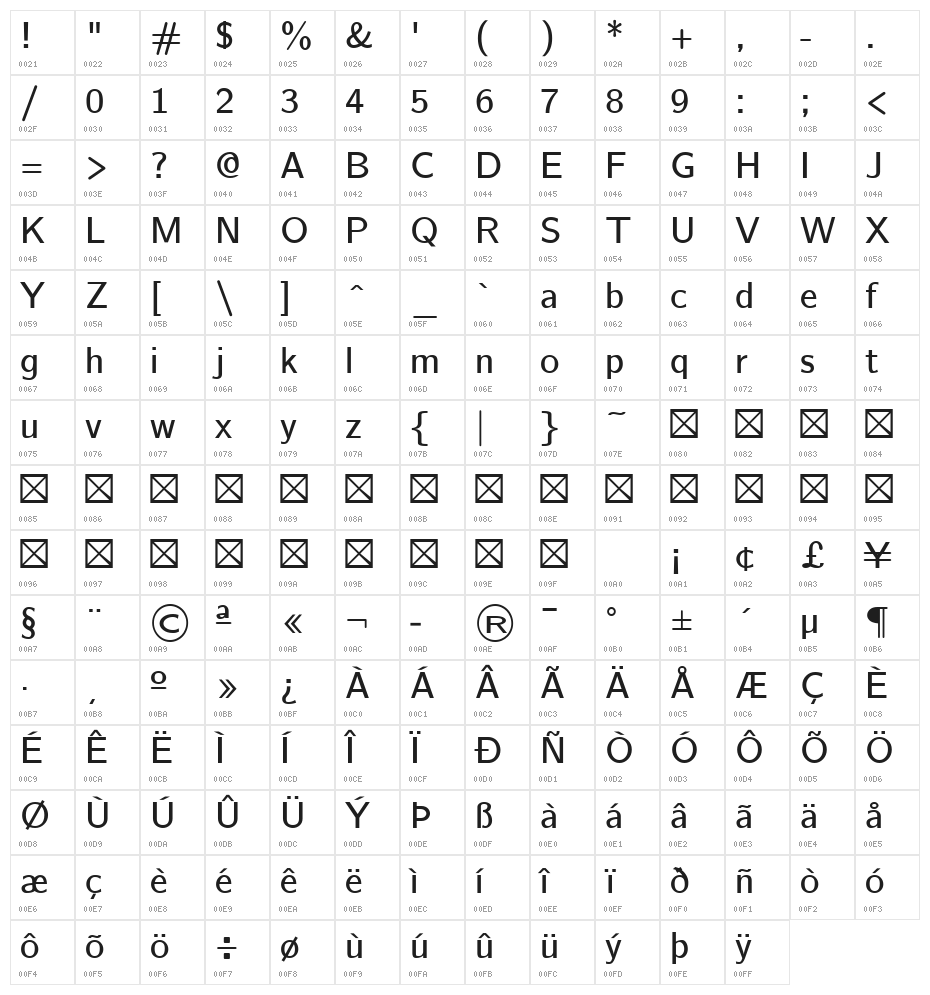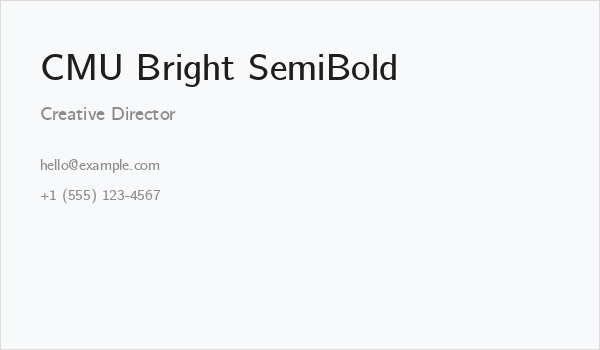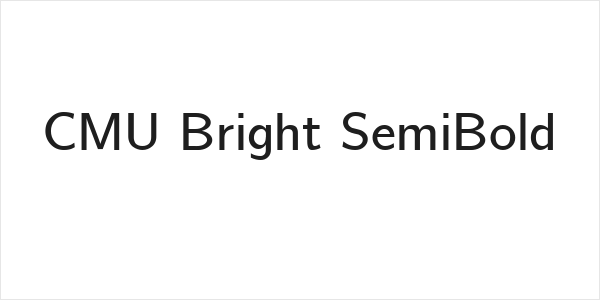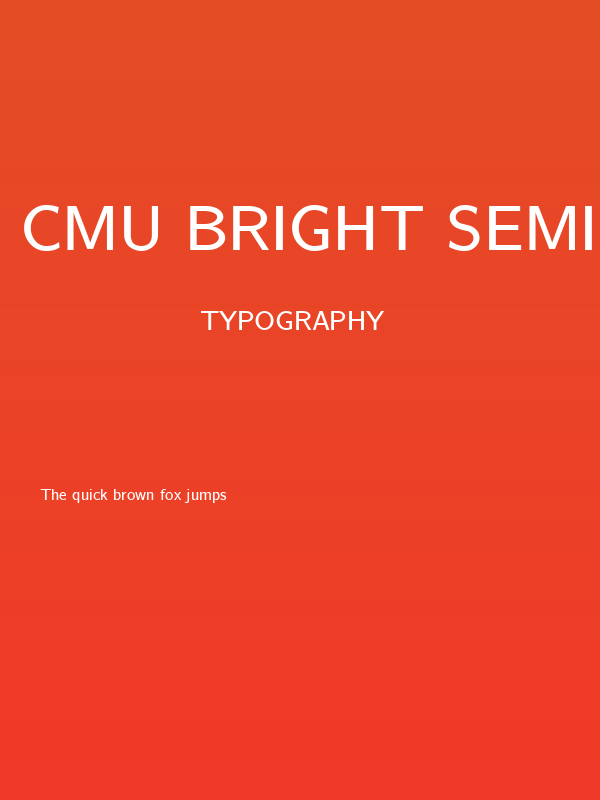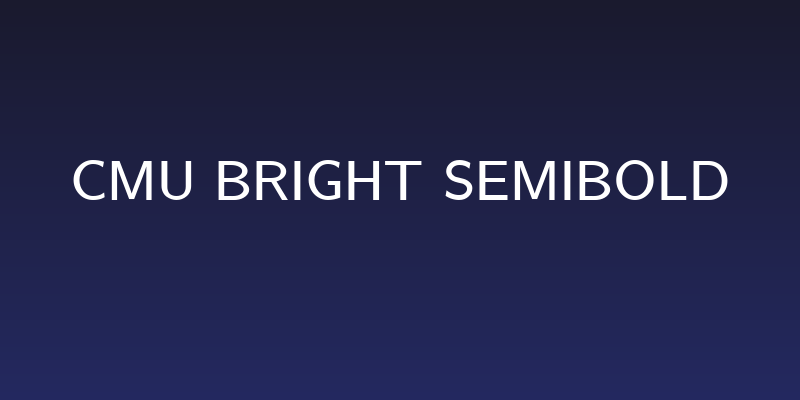
CMU Bright SemiBold Font
CMU Bright SemiBold Description
This typeface presents a clean and modern aesthetic with a semi-bold weight that ensures readability and impact. The characters are well-proportioned, featuring smooth curves and straight lines that create a harmonious balance. The uppercase letters are bold and commanding, while the lowercase letters maintain a consistent flow, making it suitable for both headlines and body text. The numerals are clear and distinct, ensuring legibility in numerical data. Special characters are well-integrated, providing versatility for various applications. The overall design is sleek and professional, making it ideal for contemporary projects.
| Proposed Projects | Ideal for corporate branding, editorial design, web design, and advertising materials. |